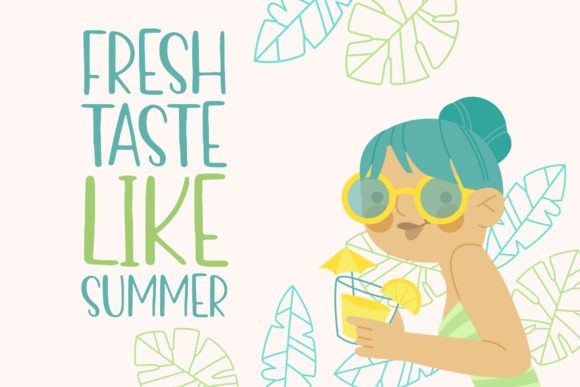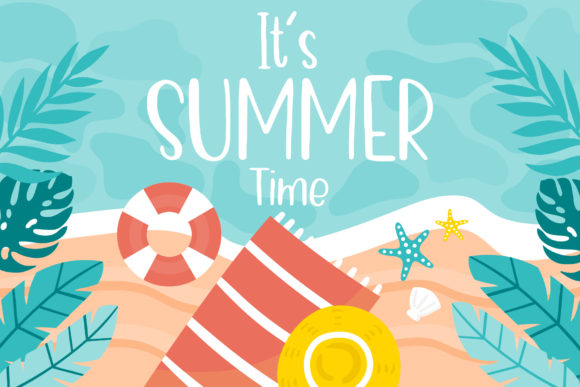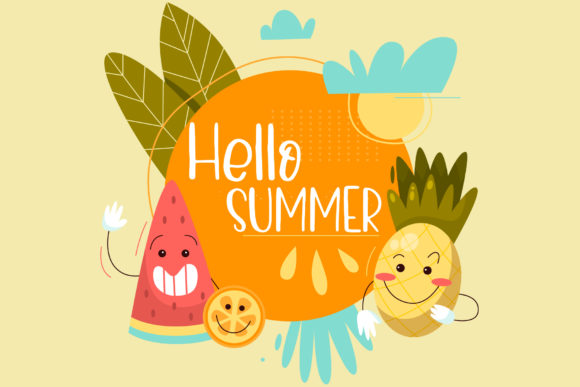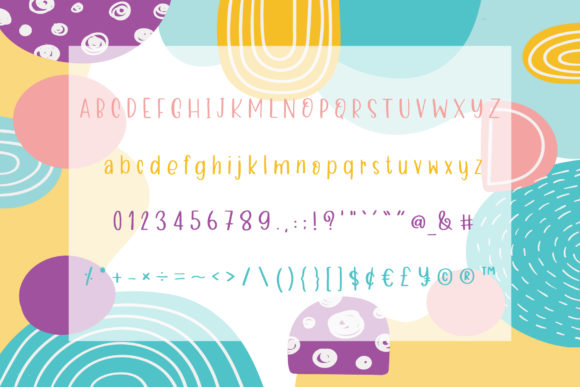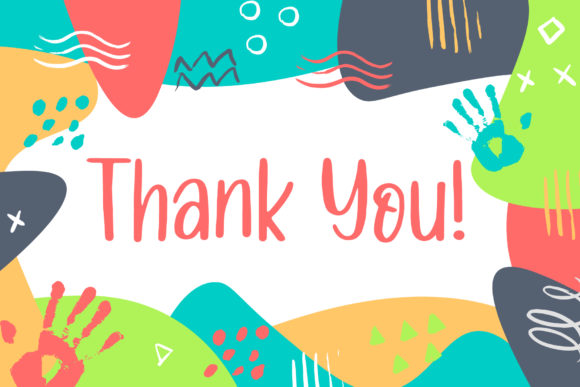
Introducing Happy Summer Font: The Perfect Addition to Your Creative Projects
Are you looking for a font that exudes playfulness and modernity? Look no further than Happy Summer Font! This beautiful handwritten font is perfect for designers and crafters who want to add a touch of personality to their projects. With its incredibly versatile style, Happy Summer Font is ideal for creating stunning wedding invitations, gorgeous stationery art, eye-catching social media posts, and much more.
What Makes Happy Summer Font So Special?
Happy Summer Font is a unique and refreshing addition to any design project. Its playful and modern handwritten style is sure to capture the attention of your audience and leave a lasting impression. The font’s versatility is one of its standout features, making it perfect for a wide range of applications, from formal wedding invitations to fun and quirky social media posts.
Perfect for Wedding Invitations and Stationery
If you’re a designer or crafter who specializes in creating wedding invitations and stationery, Happy Summer Font is a must-have addition to your font collection. The font’s elegant and refined style makes it perfect for creating beautiful and sophisticated wedding invitations, save-the-date cards, and other stationery items. Whether you’re designing for a formal or casual wedding, Happy Summer Font is sure to impress.
Eye-Catching Social Media Posts
In today’s digital age, social media is an essential platform for businesses and individuals to connect with their audience. With Happy Summer Font, you can create eye-catching social media posts that are sure to grab the attention of your followers. From fun and quirky graphics to more formal and professional posts, this font is perfect for adding a personal touch to your social media content.
The creative possibilities with Happy Summer Font are endless! This versatile font can be used for a wide range of projects, including:
- Signage and display design
- Digital art and illustrations
Why Choose Happy Summer Font?
So, why choose Happy Summer Font for your next project? Here are just a few reasons:
- Unique and playful style: Happy Summer Font has a unique and playful style that’s sure to stand out from the crowd.
- Versatility: This font is incredibly versatile and can be used for a wide range of projects.
- Elegant and refined: Despite its playful style, Happy Summer Font is also elegant and refined, making it perfect for formal projects.
- Easy to read: The font is easy to read, even at small sizes, making it perfect for body text and captions.
In conclusion, Happy Summer Font is a beautiful and versatile handwritten font that’s perfect for designers and crafters who want to add a touch of personality to their projects. With its unique and playful style, elegant and refined aesthetic, and endless creative possibilities, this font is sure to become a favorite in your font collection. So why wait? Download Happy Summer Font today and start creating stunning designs that will leave a lasting impression on your audience!